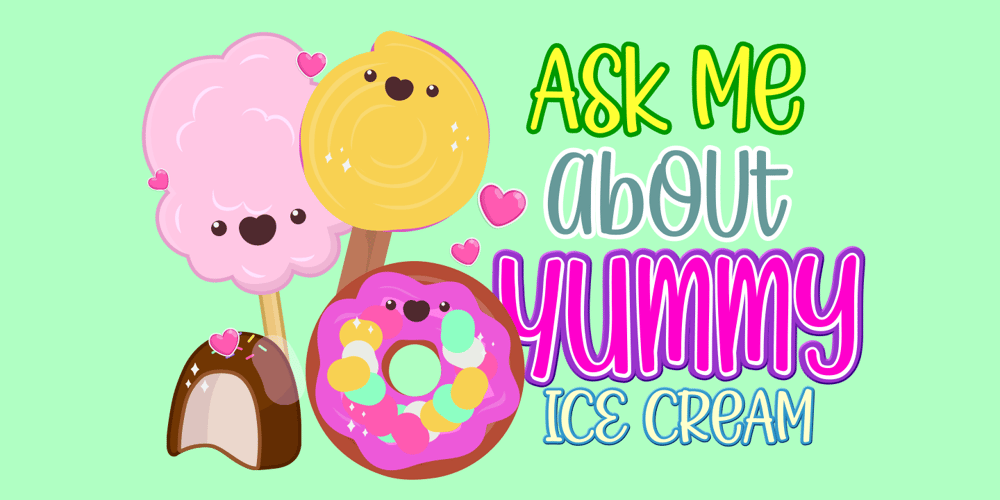
Yummy Ice Cream Font Family was designed by Ali Hamidi and published by Brithos Type. Yummy Ice Cream contains 1 styles and family package options. Yummy Ice Cream is a cute and casual font with a friendly feel. This display font is the perfect fit for all of your logos, branding, social media, and crafty DIY projects.